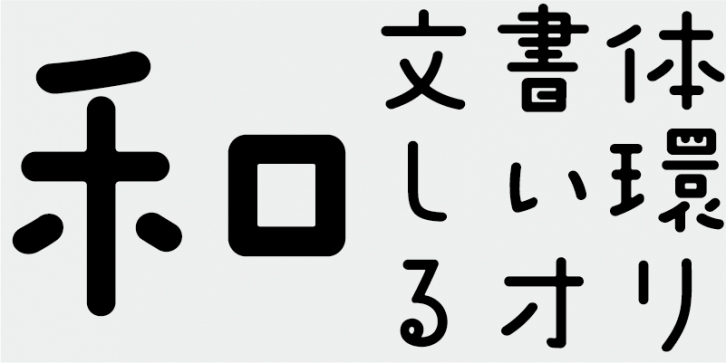
This typeface design is inspired by the movements of a baby: standing, sitting on the floor, lying sprawled – its bearing unstable.
This font includes top 1,000 kanji characters chosen from character frequency tables made by newspaper companies, publishing houses and linguistic research institutes, plus 206 kana characters and punctuation marks.